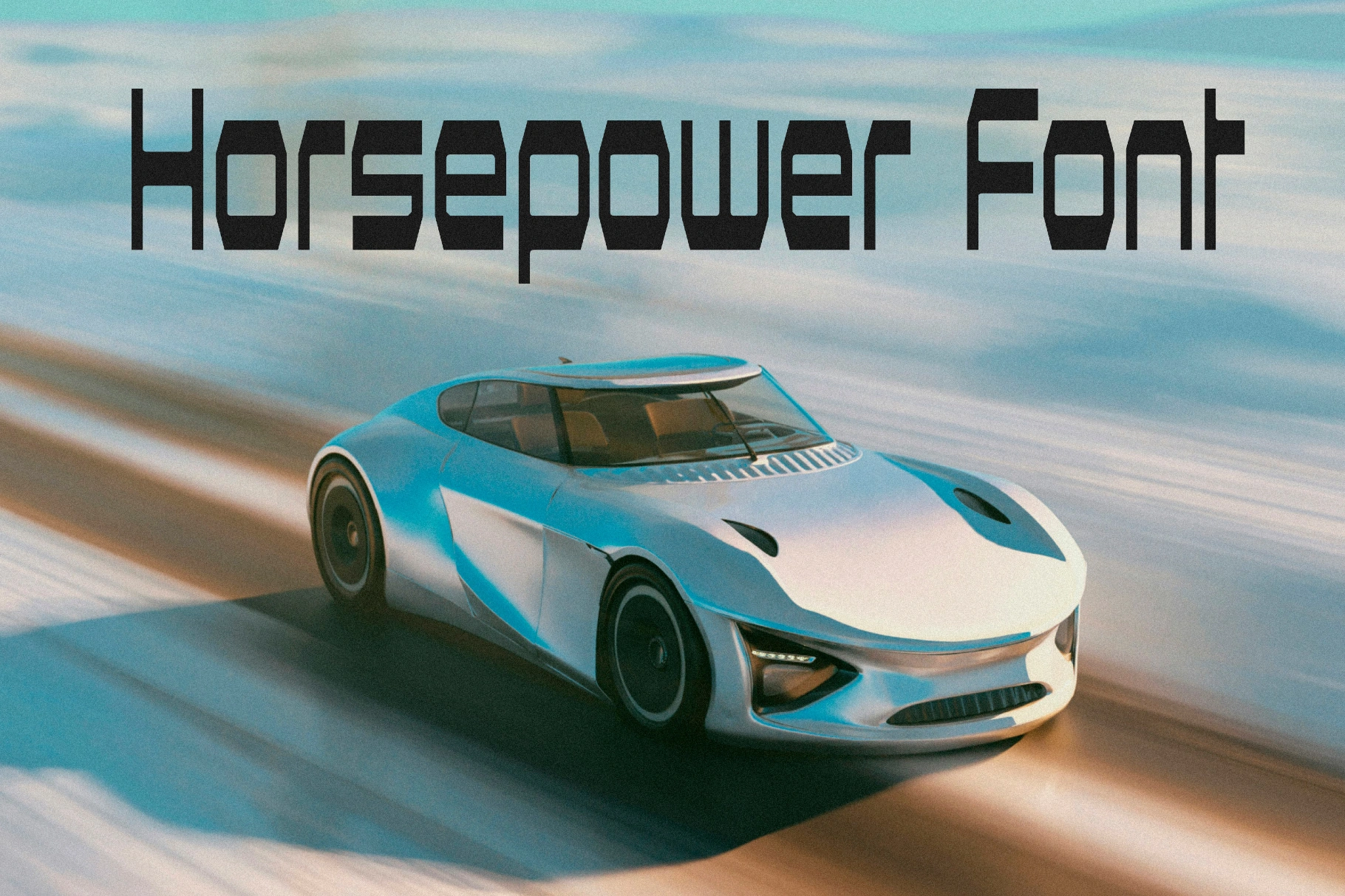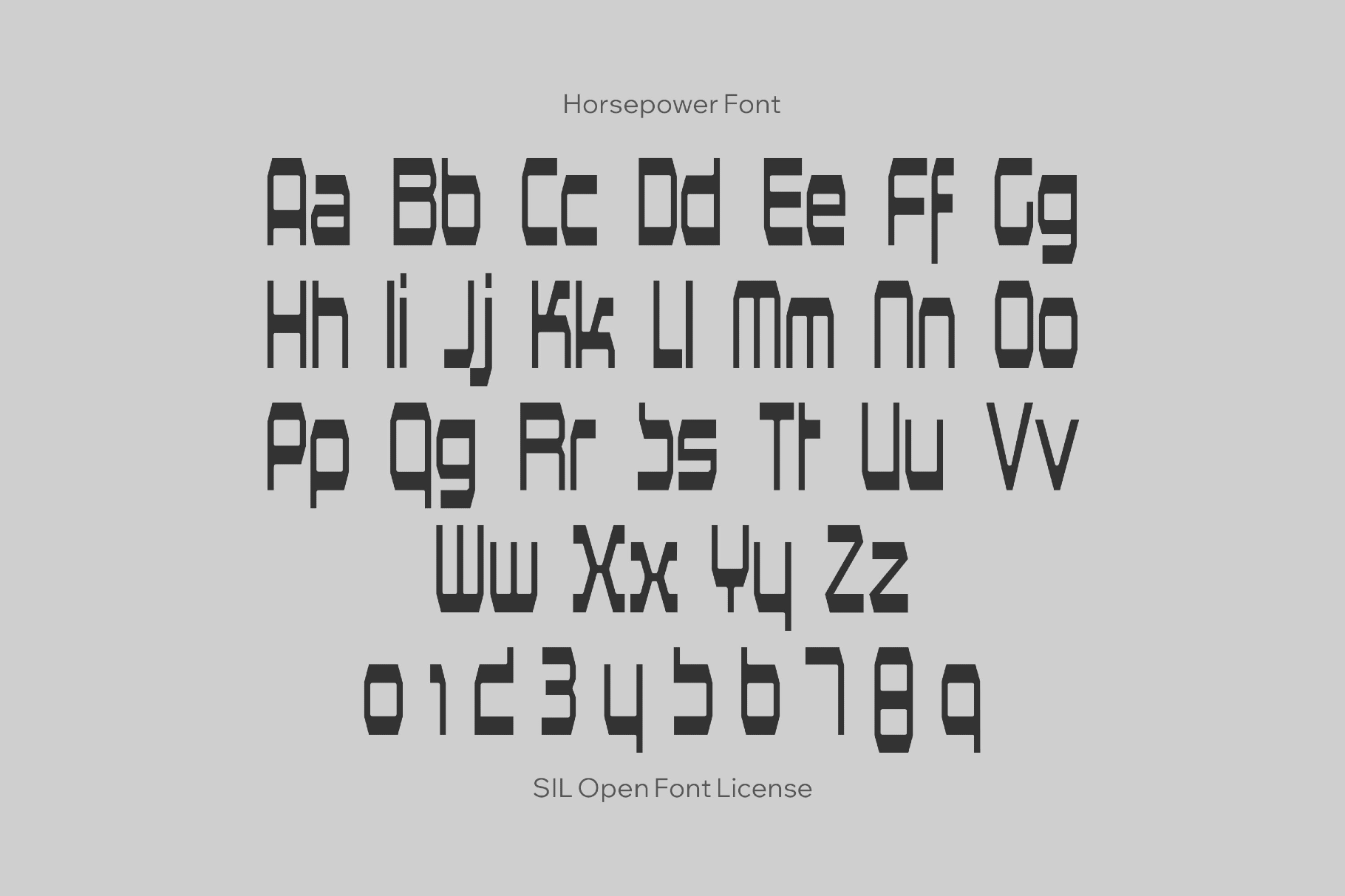
Horsepower Font
Horsepower is a technological font with a condensed silhouette, tight spacing, and a high x-height that recalls ’70s drag-racing posters and the vintage automotive decals. The bold and angular shapes are a strong choice for game and tech logos, Y2K-influenced poster headlines, product packaging, sci-fi book or comic covers, apparel graphics, vehicle decals, esports team marks, and social promos.
• Uppercase and lowercase letters.
• Numbers, punctuation, symbols, and multiple currency signs.
• International characters with multilingual support across extended Latin scripts.
• Extended support for mathematical symbols and metrics.